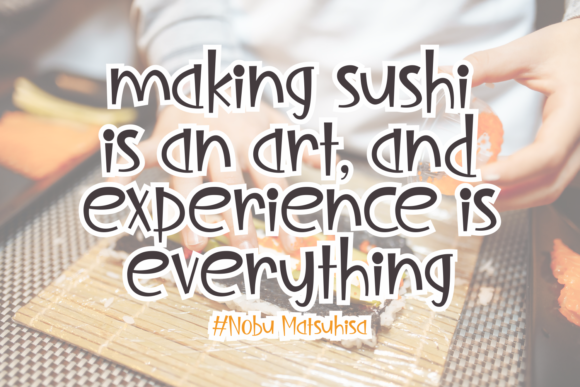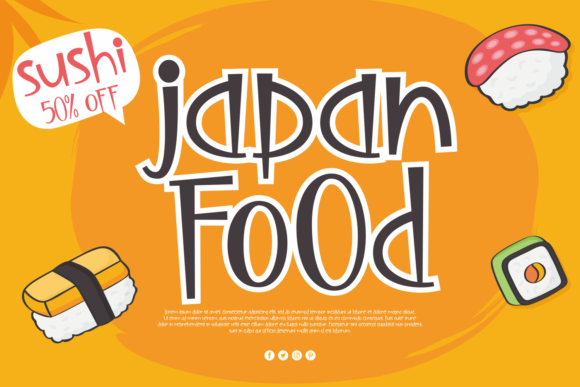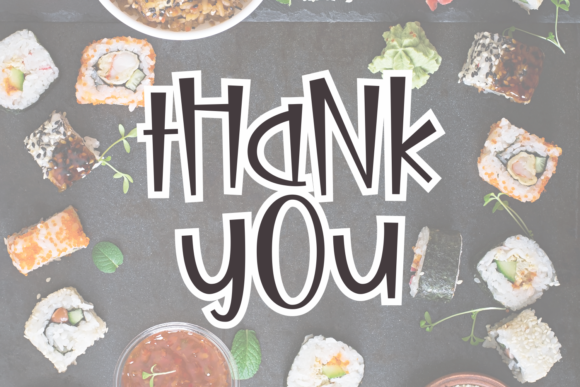
Introducing Delicious Sushi Font: Elevate Your Designs with a Taste of Elegance
Are you a designer or crafter looking for a unique and captivating font to elevate your creative projects? Look no further than Delicious Sushi Font, a stunning display font that is sure to add a touch of sophistication to your designs. In this article, we’ll dive into the features and benefits of Delicious Sushi Font, and explore how it can be used to create visually stunning designs for food and drink menus, posters, quotes, magazines, t-shirts, branding, and logos.
A Font that’s Thin, Tall, and Elegant
Delicious Sushi Font is a creative display font that boasts a thin and tall design with pretty sharp lines. Its sleek and modern aesthetic makes it perfect for designs that require a touch of elegance and sophistication. The font’s unique character set is designed to add a touch of whimsy and playfulness to your designs, making it ideal for food and drink-related projects.
Perfect for Food and Drink Menus
Delicious Sushi Font is specifically designed with food and drink menus in mind. Its elegant and refined design makes it perfect for showcasing menu items in a clear and visually appealing way. Whether you’re designing a menu for a sushi restaurant, a coffee shop, or a bakery, Delicious Sushi Font is sure to add a touch of sophistication and style to your design.
Versatile and Adaptable
Delicious Sushi Font is not just limited to food and drink menus. Its versatility and adaptability make it suitable for a wide range of design projects, including posters, quotes, magazines, t-shirts, branding, and logos. Whether you’re designing a promotional poster for a restaurant or a logo for a food brand, Delicious Sushi Font is sure to make a lasting impression.
Key Features of Delicious Sushi Font
- Thin and tall design with sharp lines
- Elegant and refined aesthetic
- Suitable for food and drink menus, posters, quotes, magazines, t-shirts, branding, and logos
- Unique character set with a touch of whimsy and playfulness
- Perfect for designs that require a touch of sophistication and elegance
Why Choose Delicious Sushi Font?
So why choose Delicious Sushi Font for your design projects? Here are just a few reasons:
- Unique and eye-catching design: Delicious Sushi Font is a one-of-a-kind font that is sure to grab attention and make your designs stand out.
- Elegant and refined aesthetic: The font’s elegant and refined design makes it perfect for designs that require a touch of sophistication and style.
- Versatile and adaptable: Delicious Sushi Font can be used for a wide range of design projects, from food and drink menus to posters, quotes, and logos.
Tips for Using Delicious Sushi Font
Here are a few tips for using Delicious Sushi Font in your design projects:
- Use it sparingly: Delicious Sushi Font is a display font, so it’s best to use it sparingly to add emphasis and impact to your designs.
- Pair it with other fonts: Delicious Sushi Font can be paired with other fonts to create a unique and visually appealing design.
- Experiment with different colors and textures: Delicious Sushi Font looks great in a variety of colors and textures, so don’t be afraid to experiment and find the perfect combination for your design.
In conclusion, Delicious Sushi Font is a stunning display font that is sure to elevate your designs with a touch of elegance and sophistication. Its unique and eye-catching design, elegant and refined aesthetic, and versatility and adaptability make it perfect for a wide range of design projects. Whether you’re a designer or crafter looking for a font that will make your designs stand out, Delicious Sushi Font is a great choice.